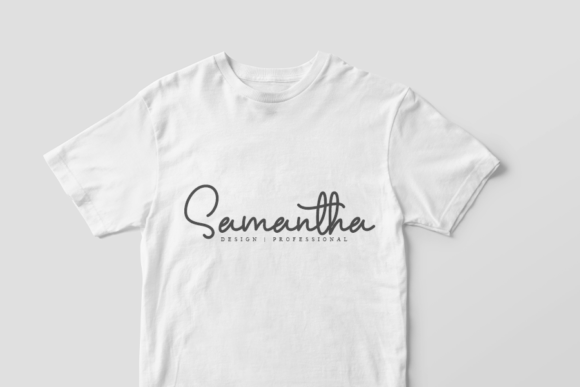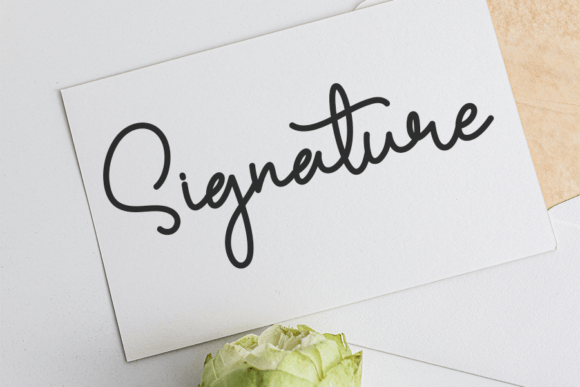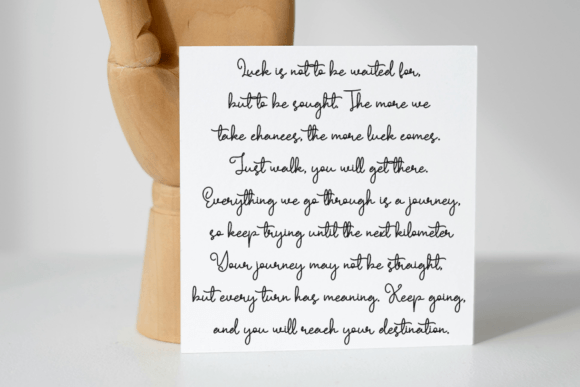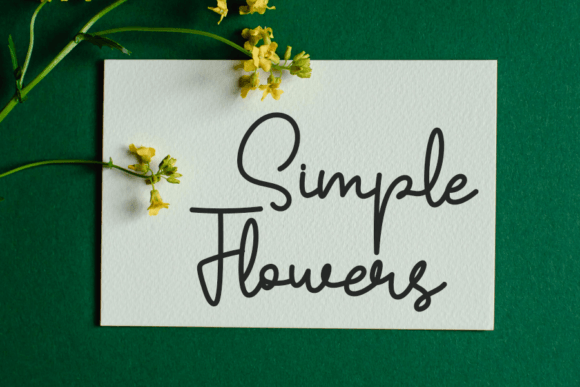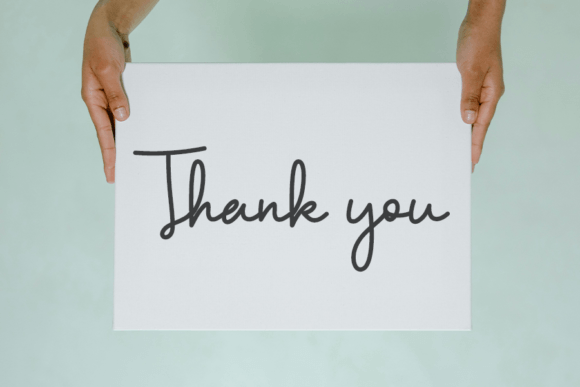
The Quest for the Perfect Handwritten Font: Discovering Buffalo
I still remember the frustration of scrolling through font after font, searching for that one special something to bring my design project to life. As a designer, I’ve had my fair share of moments where the perfect font seemed like a mythical creature – elusive and non-existent. But then, I stumbled upon Buffalo, a handwritten font that has become my go-to for a wide range of projects.
What is Buffalo Font?
Buffalo is a beautifully crafted handwritten font, designed to bring a touch of simplicity and uniqueness to your designs. Its carefully crafted shapes make it an excellent choice for writing titles, invitations, letters, and many other types of creative projects. Whether you’re a designer, crafter, or hobbyist, Buffalo is sure to become a favorite in your font collection.
An Honest Review of Buffalo Font
What I Love About Buffalo ✨
- ✅ Simple yet unique shape: Buffalo’s design is both elegant and approachable, making it perfect for a wide range of projects.
- ✅ Highly legible: The font’s clear and concise design ensures that your text is easy to read, even at smaller sizes.
- ✅ Versatile: From titles and invitations to letters and more, Buffalo is an incredibly versatile font that can be used in various contexts.
- ⚠️ Limited availability of stylistic alternates: While Buffalo has a beautiful design, it could benefit from more stylistic alternates to provide even greater flexibility.
- ⚠️ May not be suitable for very small text: As with many handwritten fonts, Buffalo may not be the best choice for very small text, as some details may be lost.
The Story Behind Buffalo Font
Buffalo was designed with the intention of creating a simple, yet unique handwritten font that could be used in a variety of contexts. The designer aimed to craft a font that was both elegant and approachable, making it perfect for designers, crafters, and hobbyists alike.
Q: What type of projects is Buffalo best suited for?
A: Buffalo is a versatile font that can be used for a wide range of projects, including titles, invitations, letters, and more.
Q: Is Buffalo a difficult font to read?
A: No, Buffalo is designed to be highly legible, making it easy to read even at smaller sizes.